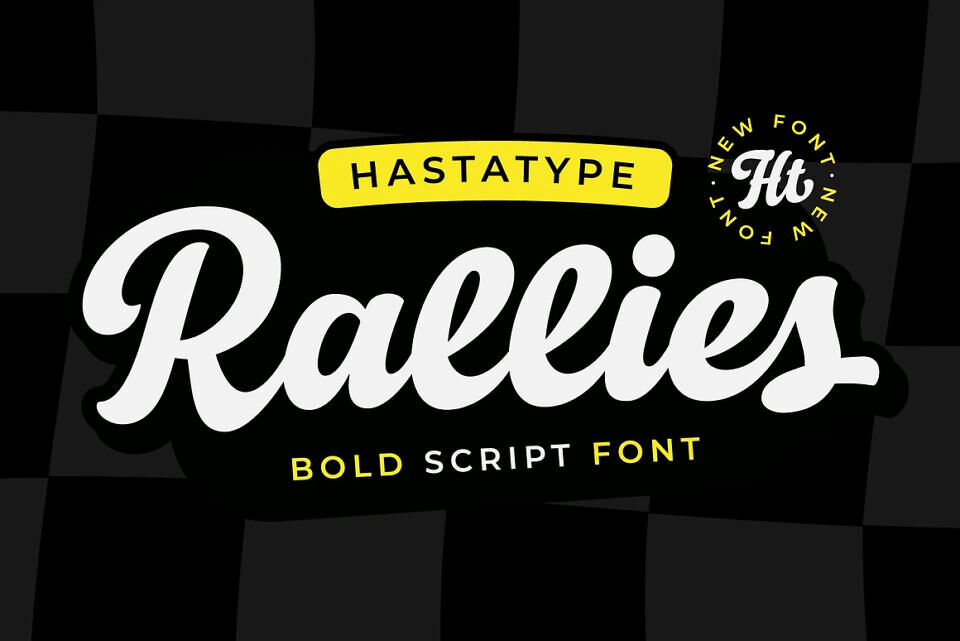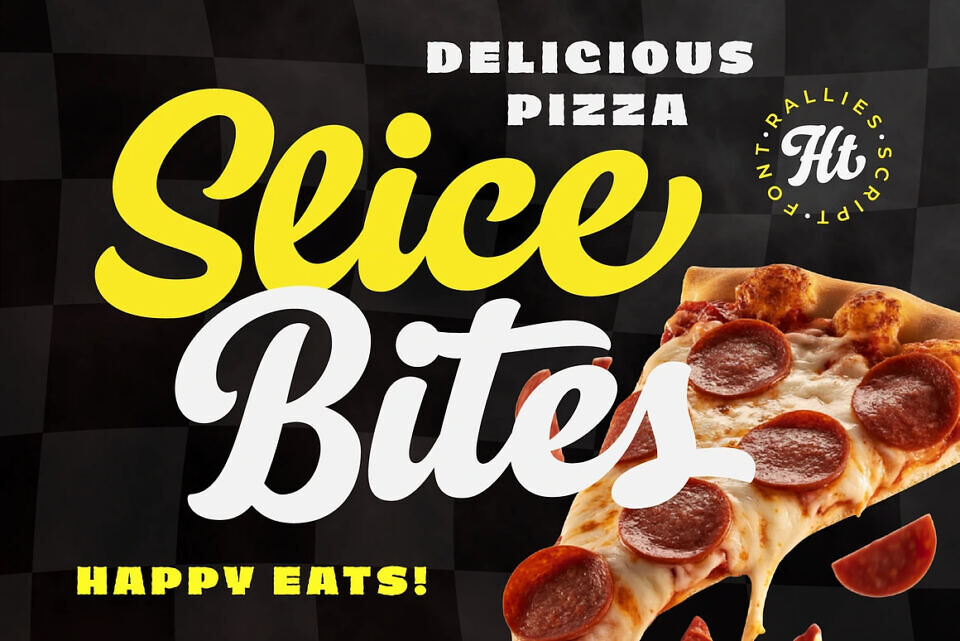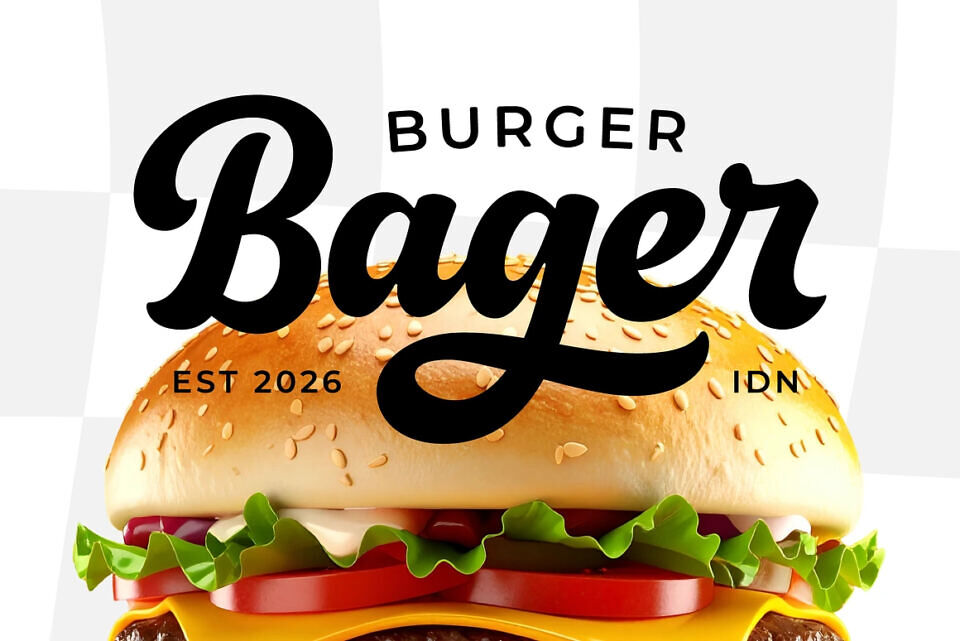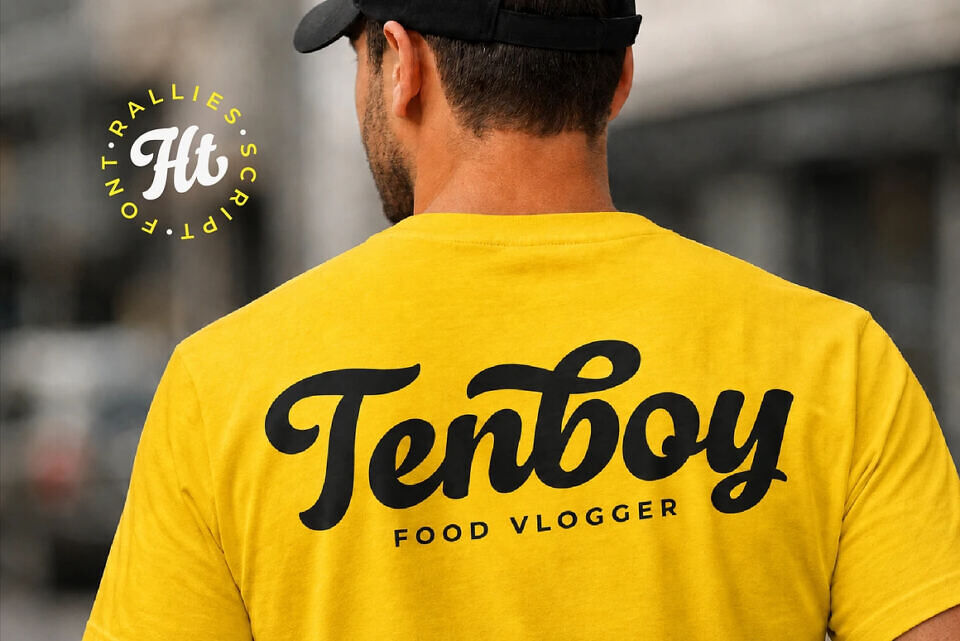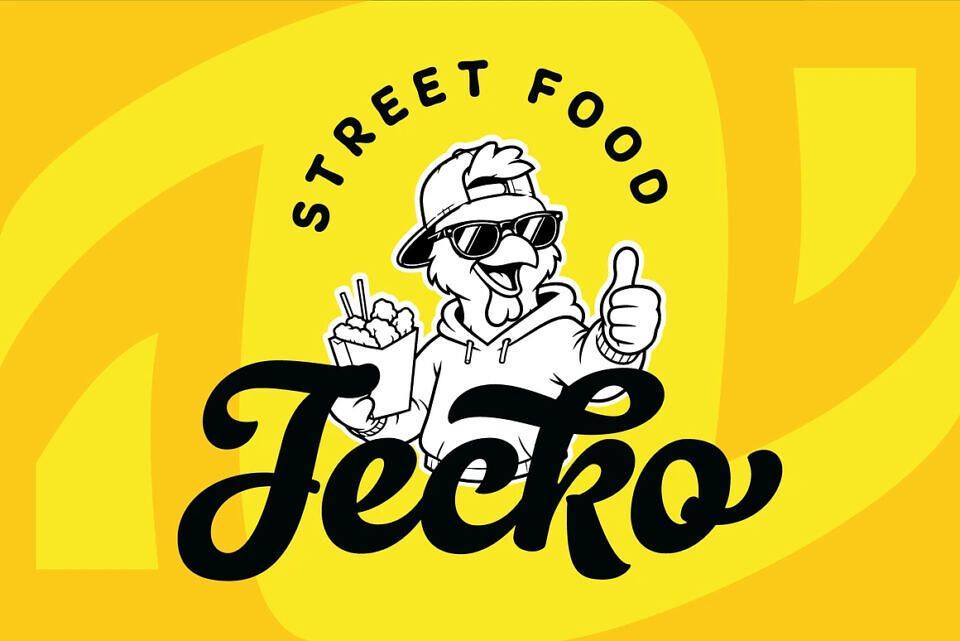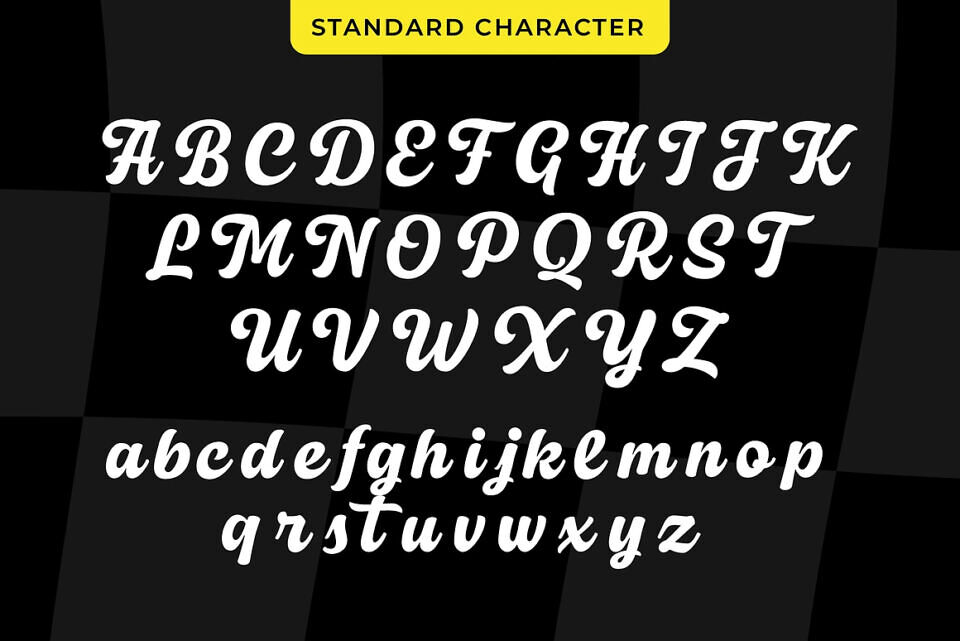
Rallies Font
Inspired by vintage American diners, classic burger joints, and handcrafted sign painting, Rallies is a bold script font that brings warmth, personality, and a nostalgic touch to your designs. Its smooth curves, thick strokes, and confident letterforms make every word feel handcrafted and full of character.
Designed with branding in mind, Rallies is perfect for creating logos that stand out, eye-catching packaging, restaurant menus, apparel graphics, and social media content. It also works beautifully for cafés, food trucks, pizza shops, street food brands, and any project that needs a friendly retro vibe.